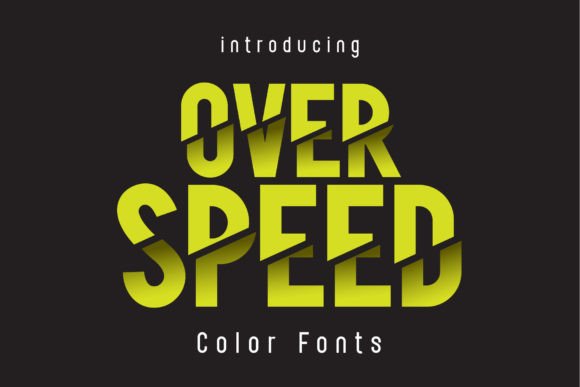
Over Speed: A Color Font That Commands Attention
Imagine a typeface that doesn't just sit on the page but bursts with energy, a font that carries its own vibrant color palette and dynamic style from the moment you select it. For designers and creators tired of manually adding gradients or color effects to letterforms, the Over Speed font offers a revolutionary approach. This isn't your average, static typeface; it's a modern display font built with Opentype-SVG technology, embedding rich color and cool, detailed designs directly into the font file itself. The result is text that pops off the screen and page with an inherent sense of motion and style, perfect for projects that demand to be seen.
Unpacking the Visual Allure of a Color Font
What sets Over Speed apart in a sea of premium fonts is its fundamental construction. As a color font, it moves beyond the one-dimensional black or white silhouettes of traditional typography. Each character is a small piece of vector artwork, capable of containing multiple colors, gradients, and even textures. This means the cool design isn't an effect you apply later; it's baked into the core of the typeface. The aesthetic leans into a contemporary, energetic vibe—think bold strokes, perhaps metallic or neon-inspired finishes, and a sense of speed in its very letterforms. This inherent character makes it a powerful design asset for anyone looking to inject immediate personality into their work without complex graphic manipulation.
From Brand Identity to Social Media Flair: Practical Applications
The true value of a creative font like Over Speed is realized in its application. Its unique personality makes it exceptionally versatile for specific types of projects where impact is key.
- Branding & Logo Design: For brands in tech, gaming, sports, or any dynamic industry, Over Speed can form the core of a memorable logo design. Its color and style immediately communicate energy and modernity, helping to establish a strong brand identity that stands out in crowded markets.
- Marketing & Social Media: In the fast-scroll environment of social media, capturing attention in a split second is everything. Using Over Speed for headlines in Instagram graphics, Facebook ads, or YouTube thumbnails can drastically increase audience engagement. It transforms a simple announcement into a visually compelling event.
- Merchandise & Packaging: For entrepreneurs creating printed t-shirts, posters, or product packaging, this font is a game-changer. It allows you to create standout designs that look professional and eye-catching directly from the font file, streamlining the production process for items like stickers, apparel, and packaging design.
- Digital Products & Editorial Layouts: Bloggers and content creators can use Over Speed for featured images or chapter headings in digital products like e-books or online course materials. In editorial design, it can pull readers into a feature story with a powerful, stylish title.
Strategic Typography: Choosing and Pairing with Purpose
Integrating a bold display font like Over Speed into a project requires more than just liking its look. Strategic thinking about font pairing and readability is essential for a professional presentation.
First, consider your project's goal. Is it for a fleeting social media post or a long-form business card? Over Speed excels in headlines, logos, and short, impactful phrases where its detailed color design can be fully appreciated. For body text, you'll need a complementary partner—a clean sans serif font for modern contrast or a simple serif font for a more classic balance. The key is to let the color font be the star while supporting text remains highly legible.
Always test your font pairings in context. Place a sample of your headline in Over Speed alongside your chosen body font on a mockup of your final medium—whether it's a website mockup, a business card template, or a t-shirt graphic. This practical test will reveal issues with scale, weight, and visual harmony that aren't apparent when viewing fonts in isolation. Also, review the full character set of the font. Check for the inclusion of numerals, punctuation, and any special characters you might need for your specific branding or editorial design work.
Final Considerations for Your Creative Toolkit
Adding a commercial font like Over Speed to your library is an investment in your creative toolkit. Its potential to elevate projects—from business cards to websites to invitations—is significant, offering a shortcut to high-impact visuals. Remember that its strength lies in specialized applications where its color and style can shine. Use it to solve specific design challenges: making a brand instantly recognizable, creating scroll-stopping social content, or designing merchandise that people are excited to wear.
Before finalizing your purchase, always double-check the licensing terms to ensure they align with your intended use, whether for personal projects or commercial client work. By understanding both the creative possibilities and technical boundaries of a font like Over Speed, you can make informed decisions that genuinely enhance your visual communication and help your projects connect with their intended audience. It’s not just about having a cool font; it’s about having the right tool to bring a specific, vibrant vision to life.